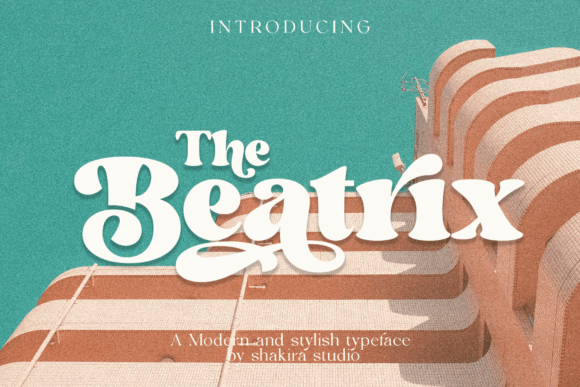
Introducing The Beatrix Font, the perfect blend of modern and retro elegance that will captivate your audience. Created by Shakira Studio, this serif font embodies boldness and charm in every letter, making it ideal for designers looking to make a statement. With its well-contoured characters and stylish alternatives, The Beatrix offers endless creative possibilities.
Unleash your imagination and explore the unique dimensions of this font. From contemporary projects to nostalgic designs, The Beatrix adapts seamlessly to any concept, delivering a strong and captivating message. Its modern and retro feel makes it a versatile choice for headlines, logos, branding, marketing materials, posters, and more.
Stand out from the crowd with The Beatrix Font. Its classic elegance combined with a touch of freshness will elevate your designs and leave a lasting impression on your audience. Whether you're working on a fashion blog, a creative campaign, or a personal project, this font will add that extra spark of creativity that sets you apart.
But don't just take our word for it. Let The Beatrix speak for itself and witness the power it holds. Experience the joy of typography as each character comes alive with its own personality, inviting your audience to engage and connect with your message. With The Beatrix, your designs will become a visual masterpiece that evokes emotions and captures attention.